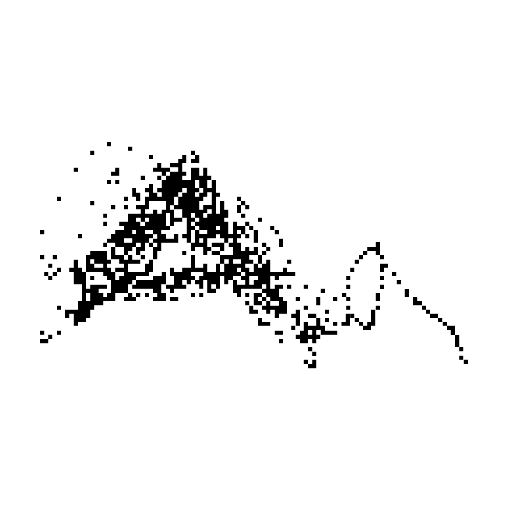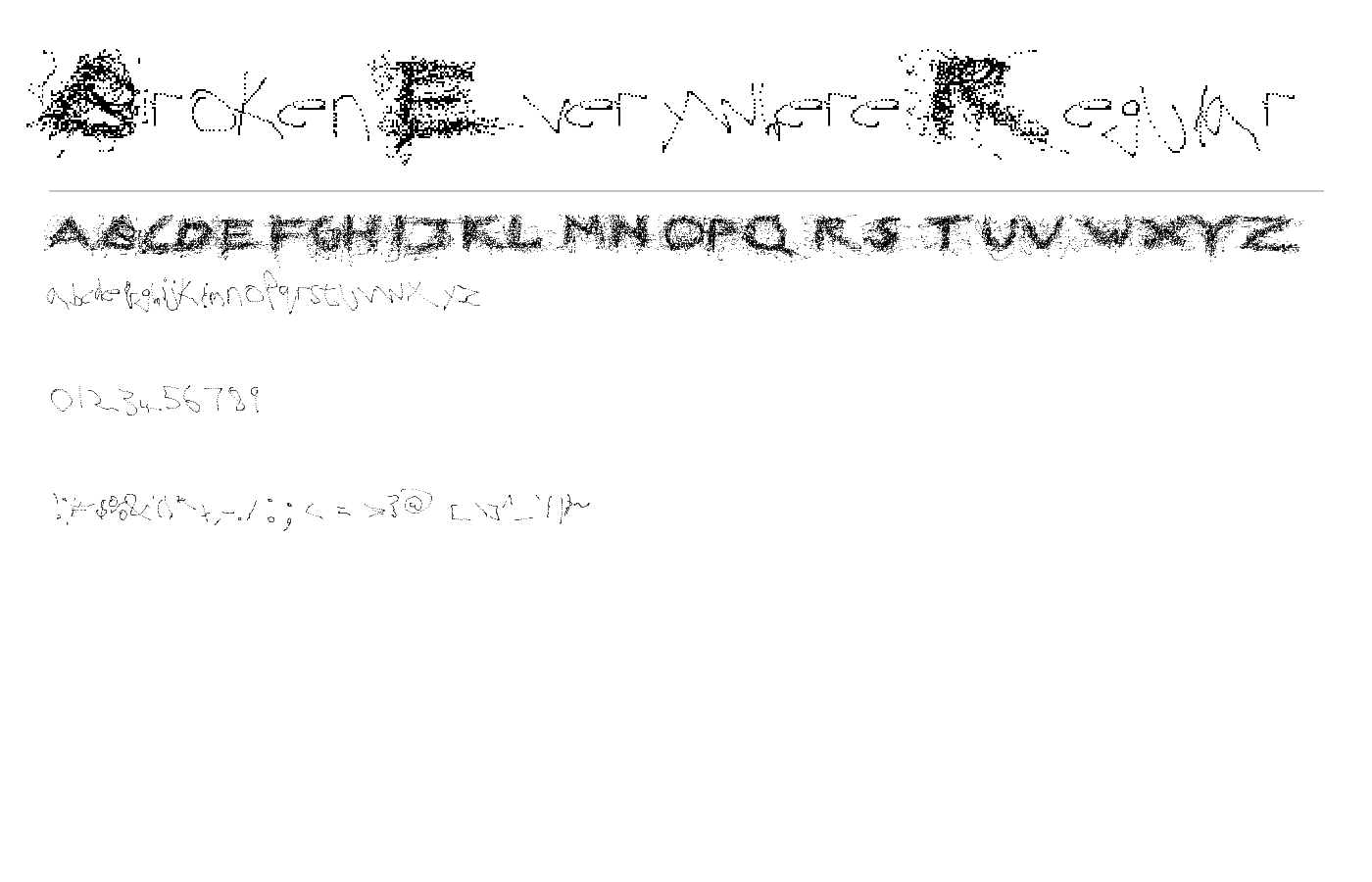
Broken Everywhere Regular is a unique sans serif font that features a distressed, fragmented style with irregular stroke textures and a light weight. Its quirky, broken letterforms give it a raw, edgy personality that works well for creative projects, posters, and branding that want to convey a sense of disruption or modern grunge. This font adds an artistic, unconventional vibe while remaining readable enough for impactful headlines and display use.
Broken Everywhere Regular Font
About Broken Everywhere Regular Font
| Font family | Broken Everywhere Regular Font |
| Designer | NickMB |